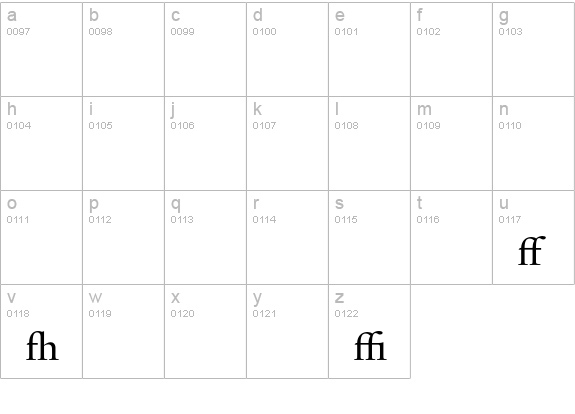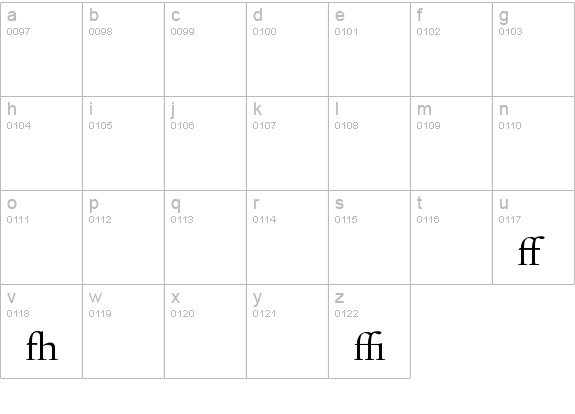
The DTLHaarlemmerD-Alt font is a stunning display font that exudes elegance and sophistication. With its unique design and intricate details, this font is perfect for adding a touch of luxury to any project. Its sleek lines and modern aesthetic make it a versatile choice for a wide range of design applications. What makes the DTLHaarlemmerD-Alt font even more appealing is that it is available for free download at FontsMarket.com. This means that you can easily access this beautiful font and use it in your projects without any cost. Whether you're working on a branding project, a website design, or any other creative endeavor, the DTLHaarlemmerD-Alt font is sure to make a statement and elevate your work to the next level.